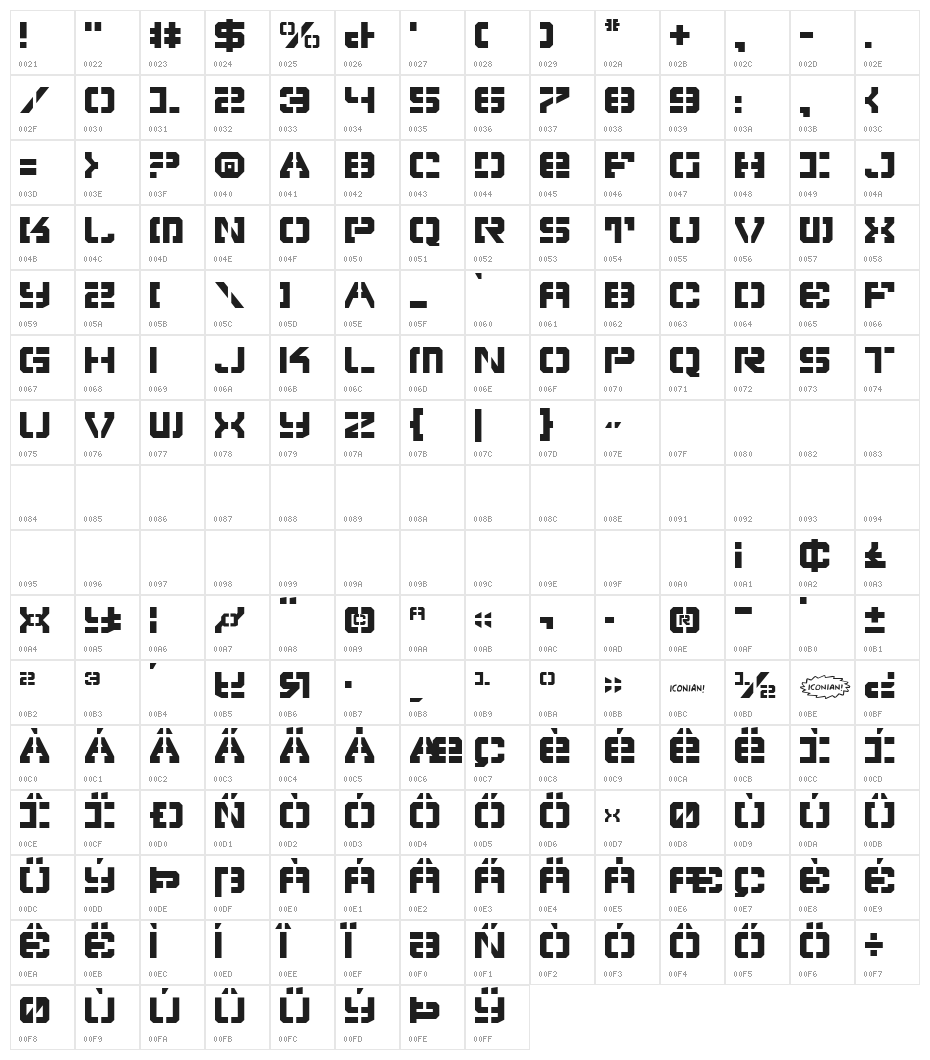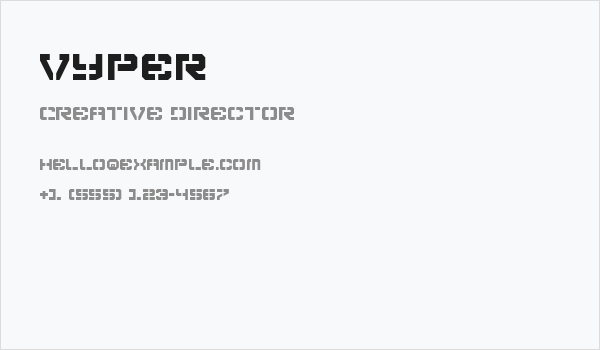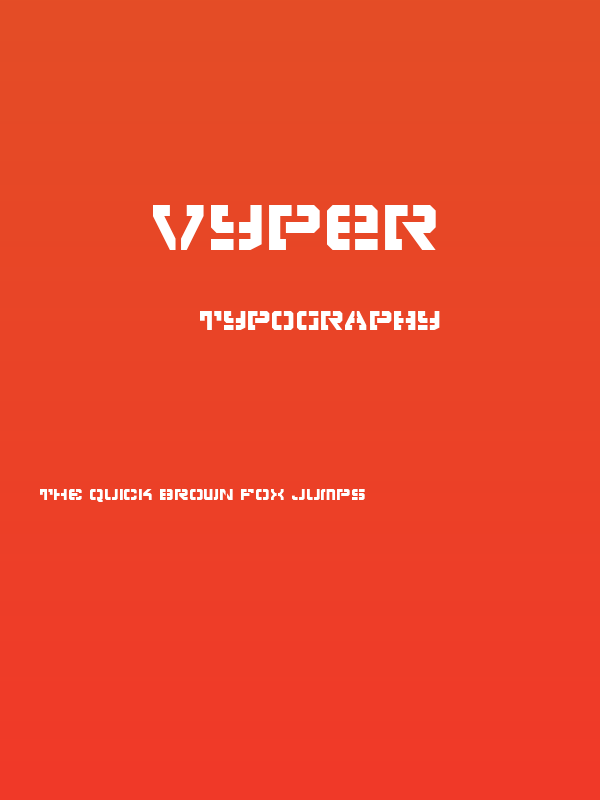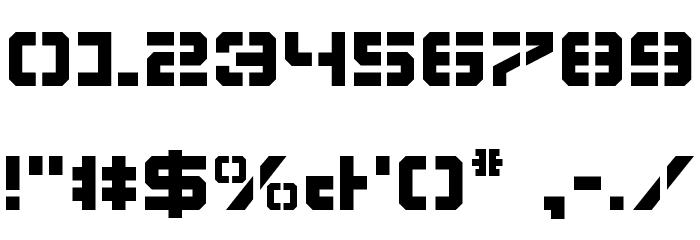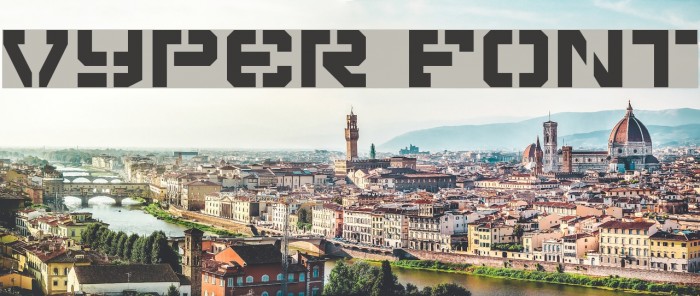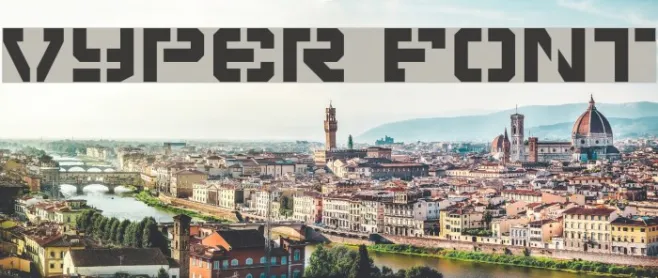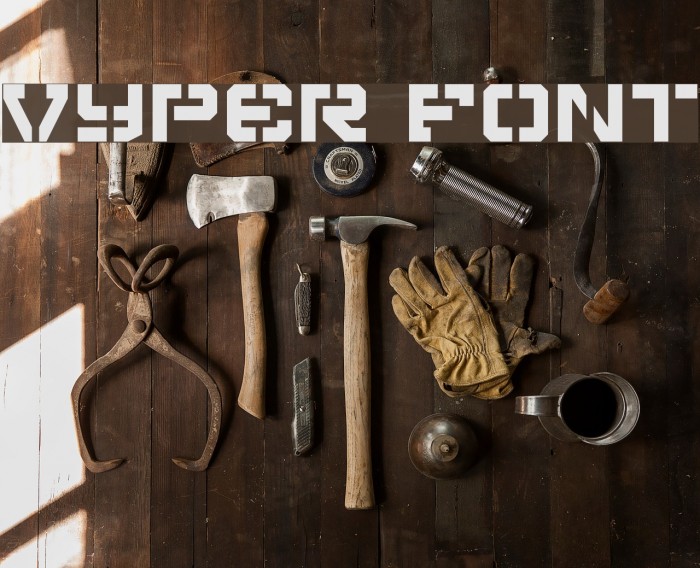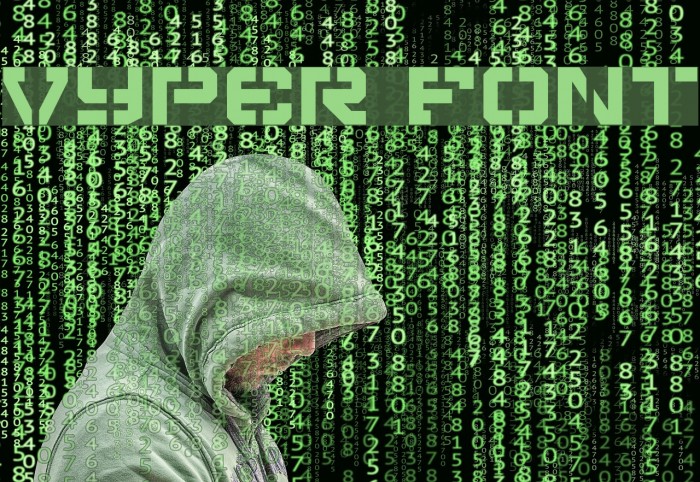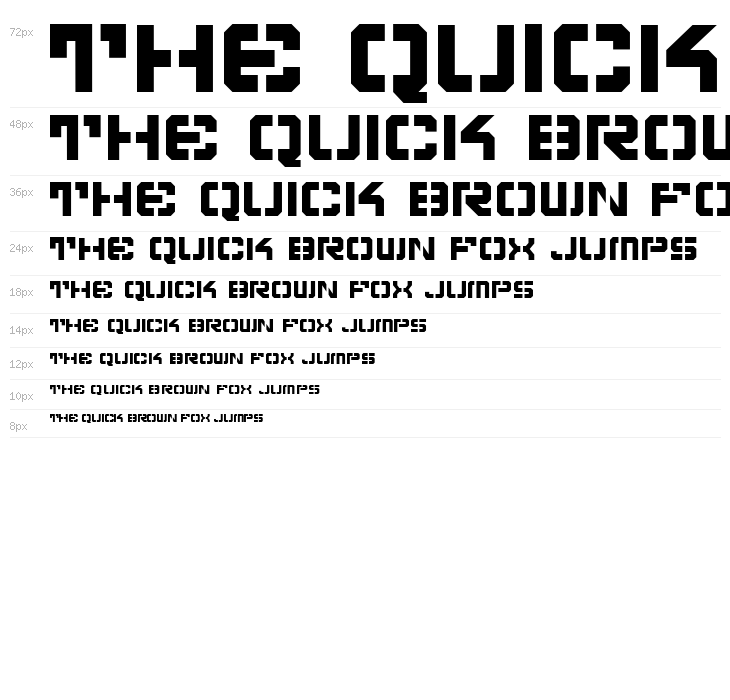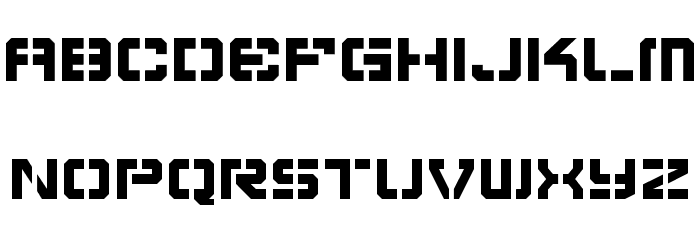
Vyper Font
Vyper Description
This font features a bold, geometric design with a futuristic and edgy appearance. The characters are constructed with sharp angles and straight lines, giving it a digital and modern feel. The uppercase and lowercase letters maintain a consistent style, with a strong emphasis on symmetry and uniformity. The numerals and special characters follow the same design principles, ensuring a cohesive look across all glyphs. This font is ideal for projects that require a bold statement and a modern aesthetic.
| Proposed Projects | Ideal for technology branding, video game titles, sci-fi movie posters, and modern digital interfaces. |